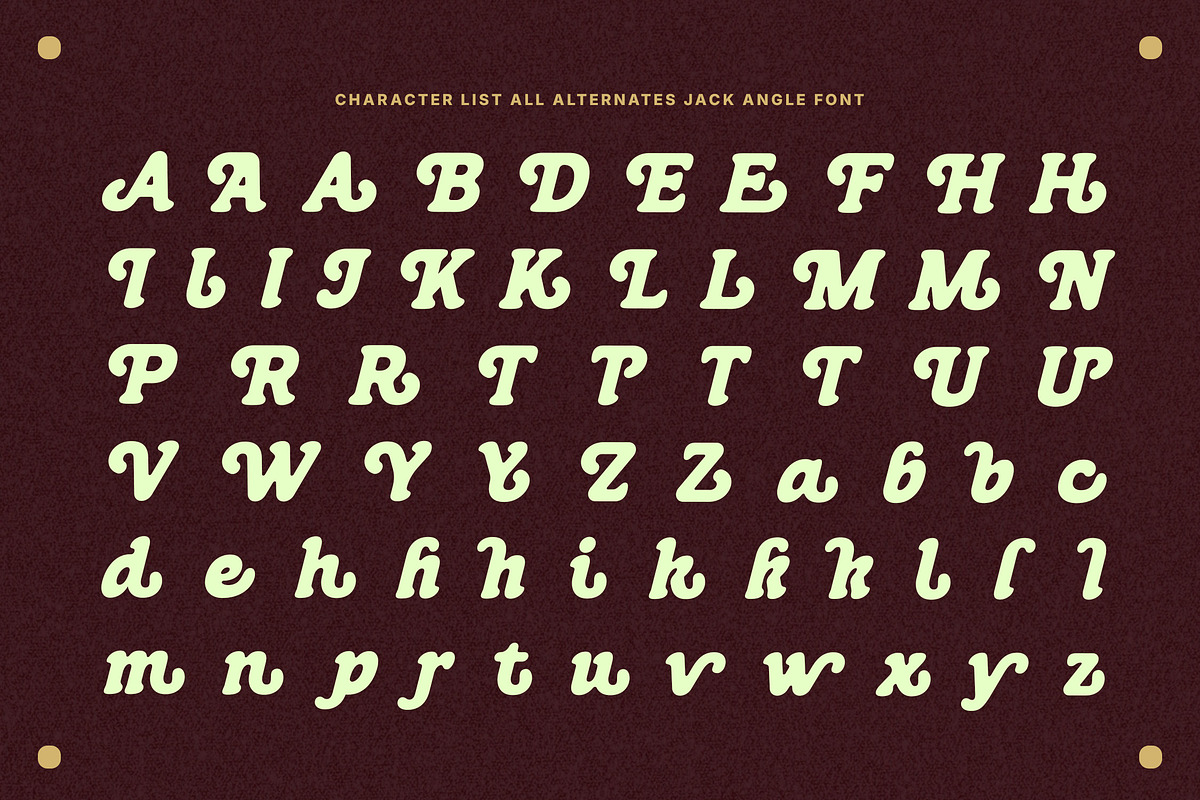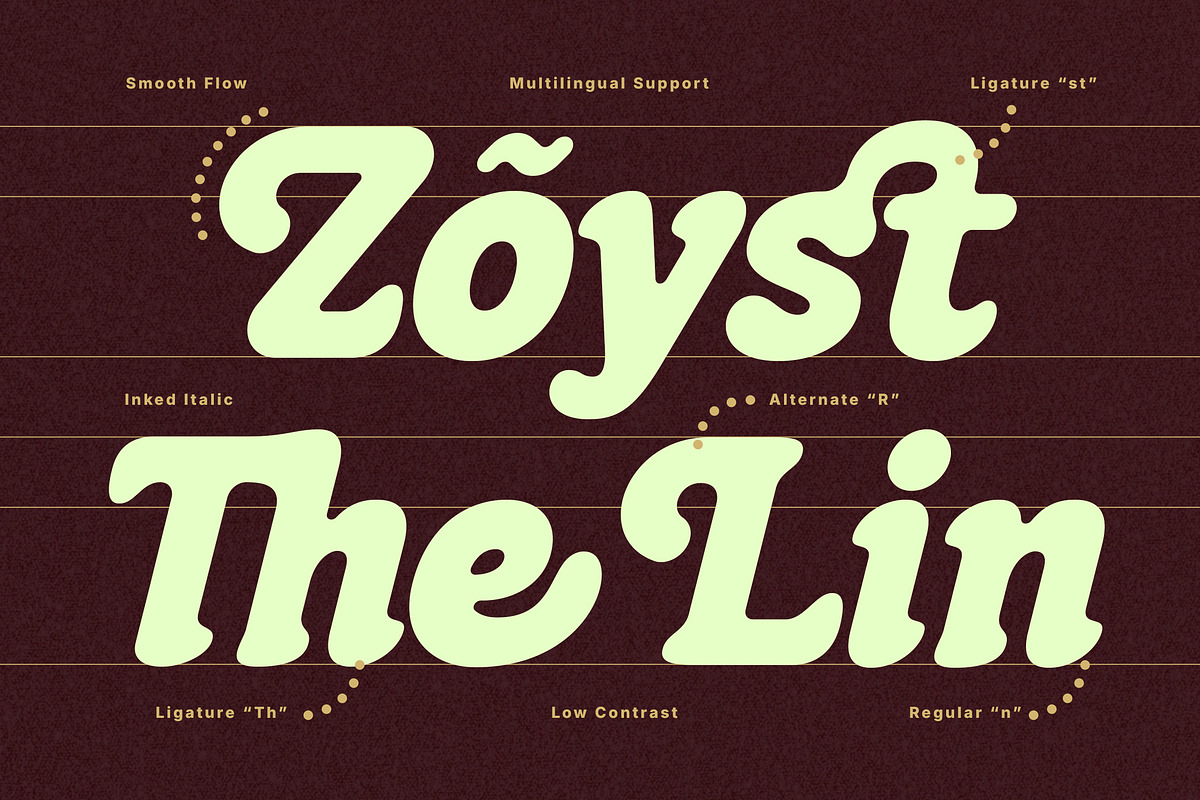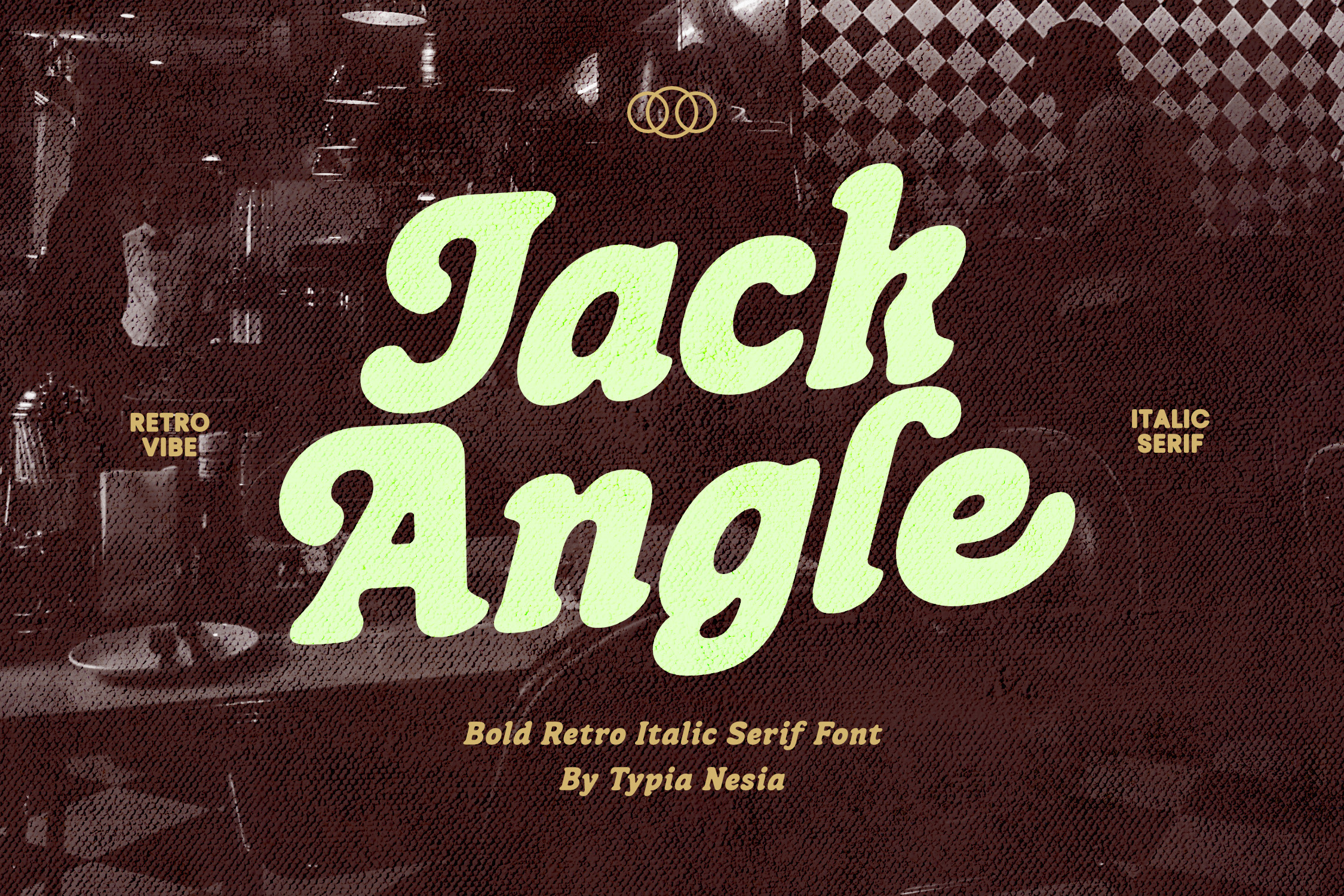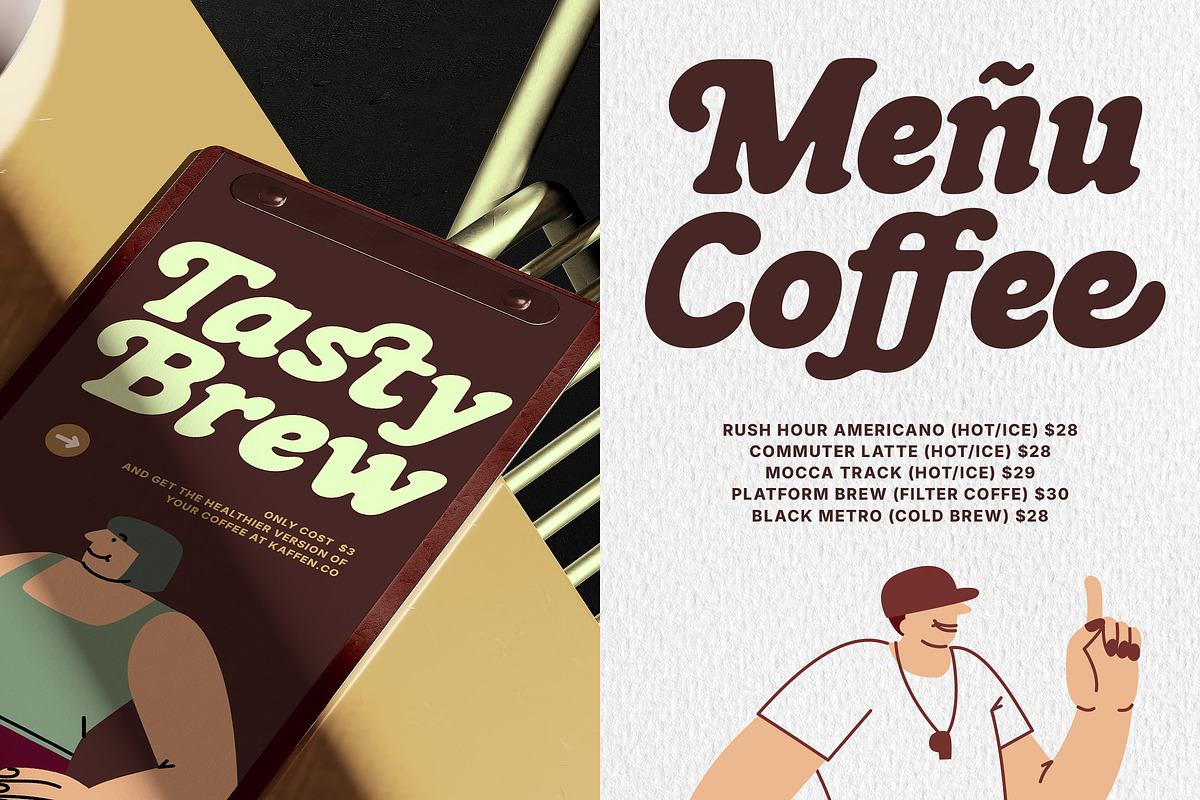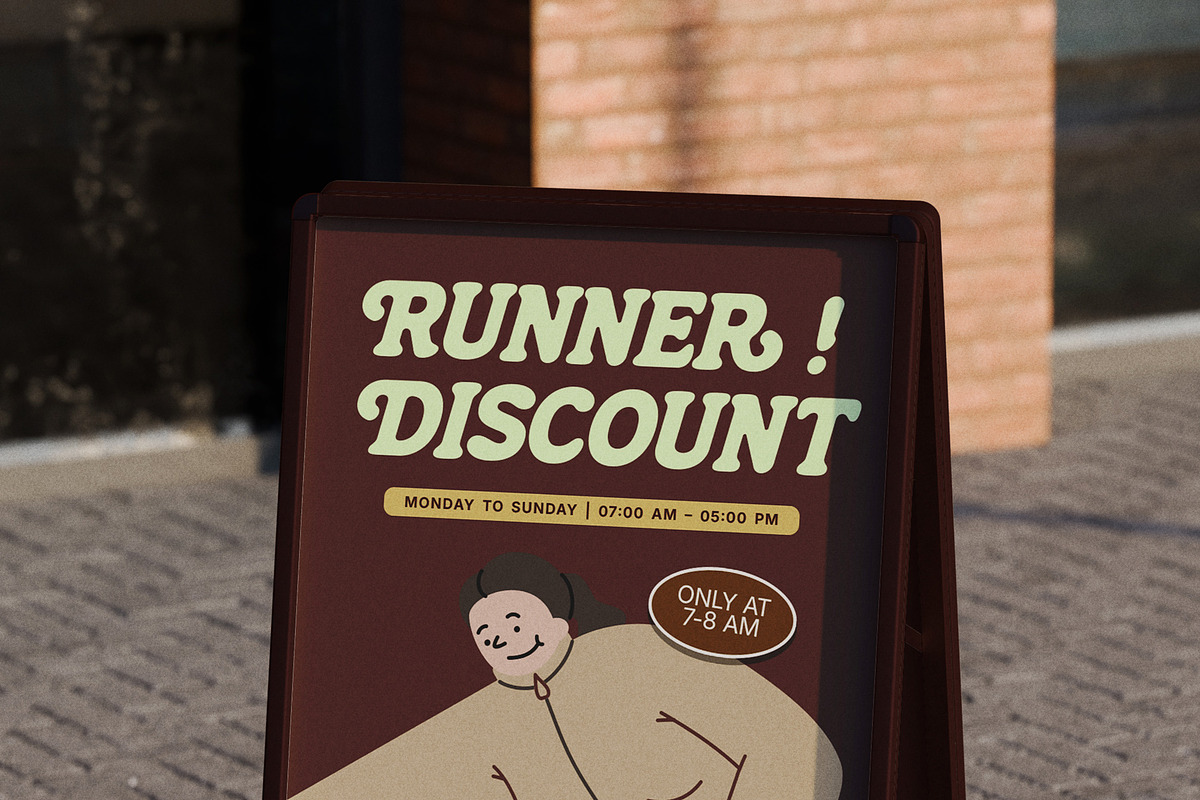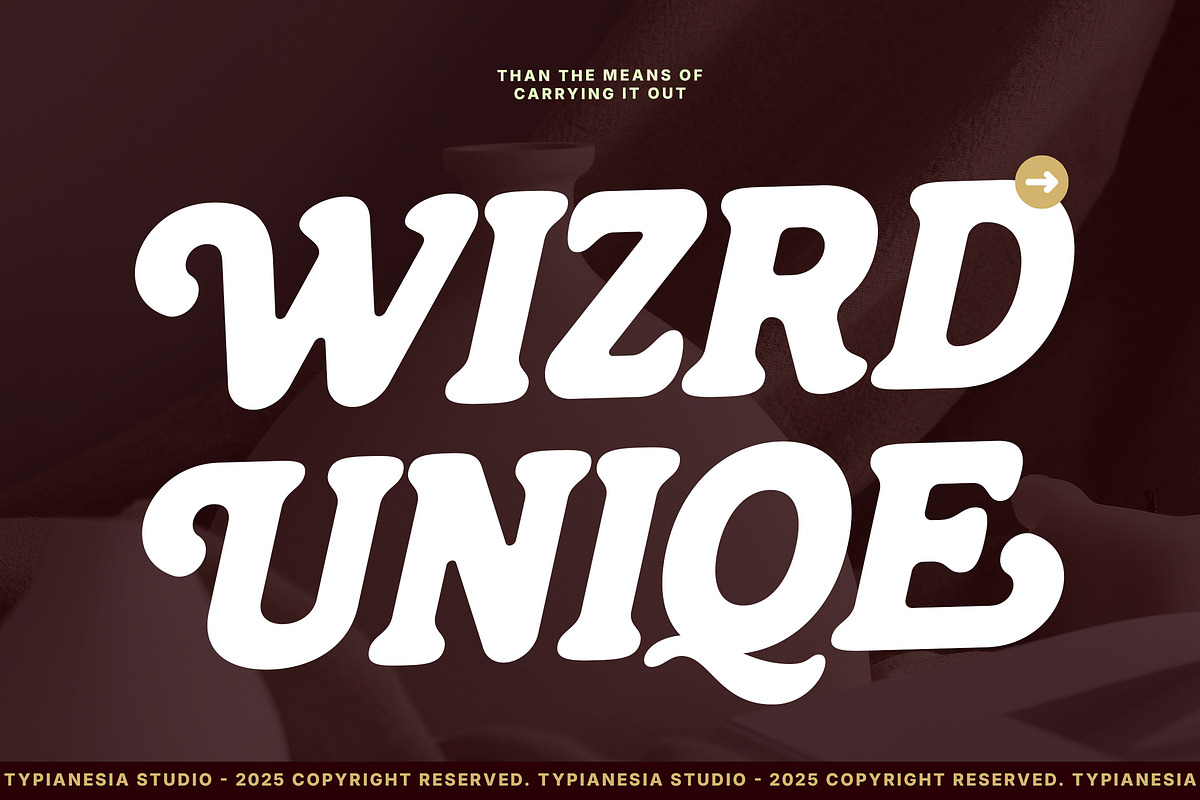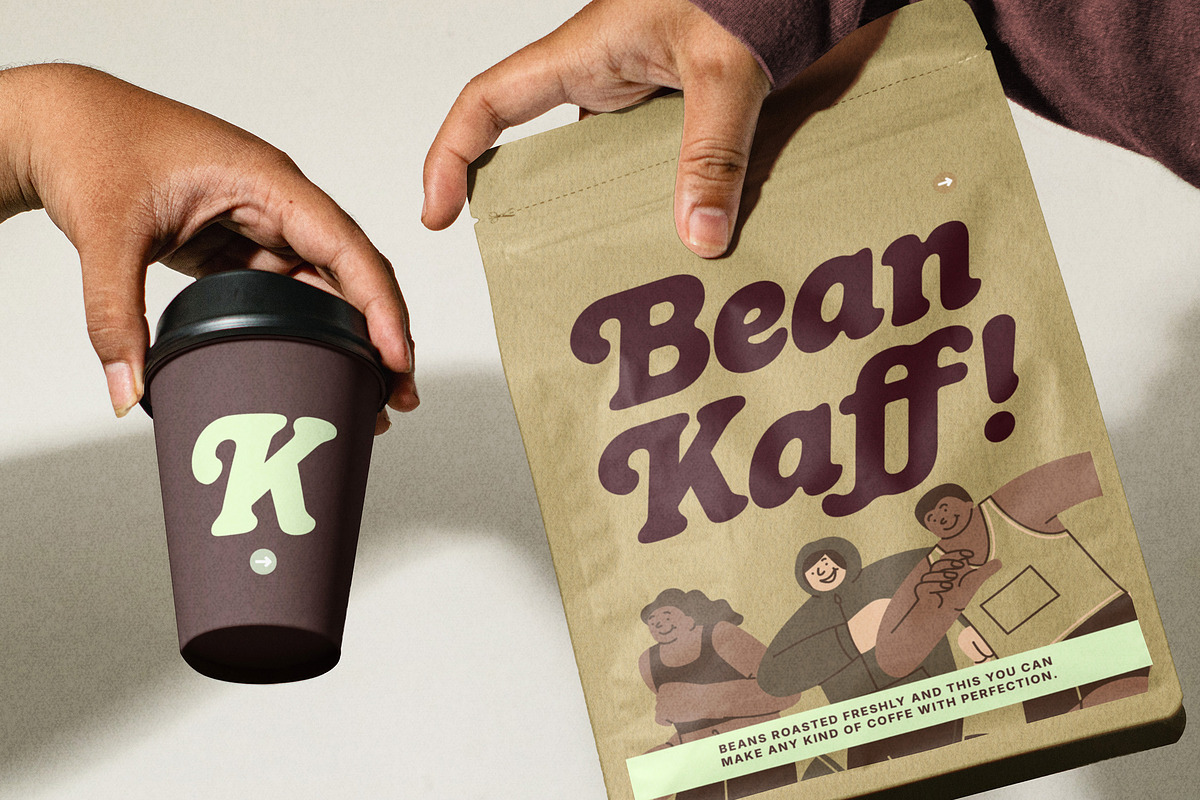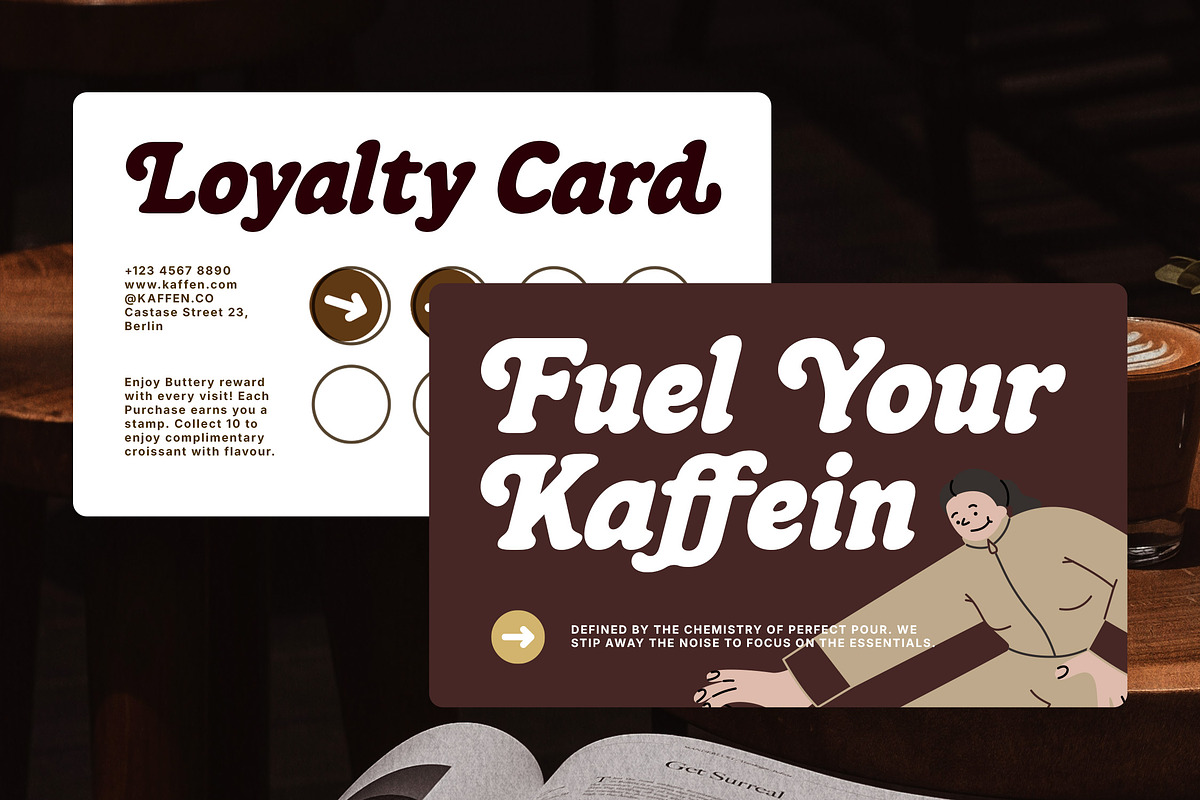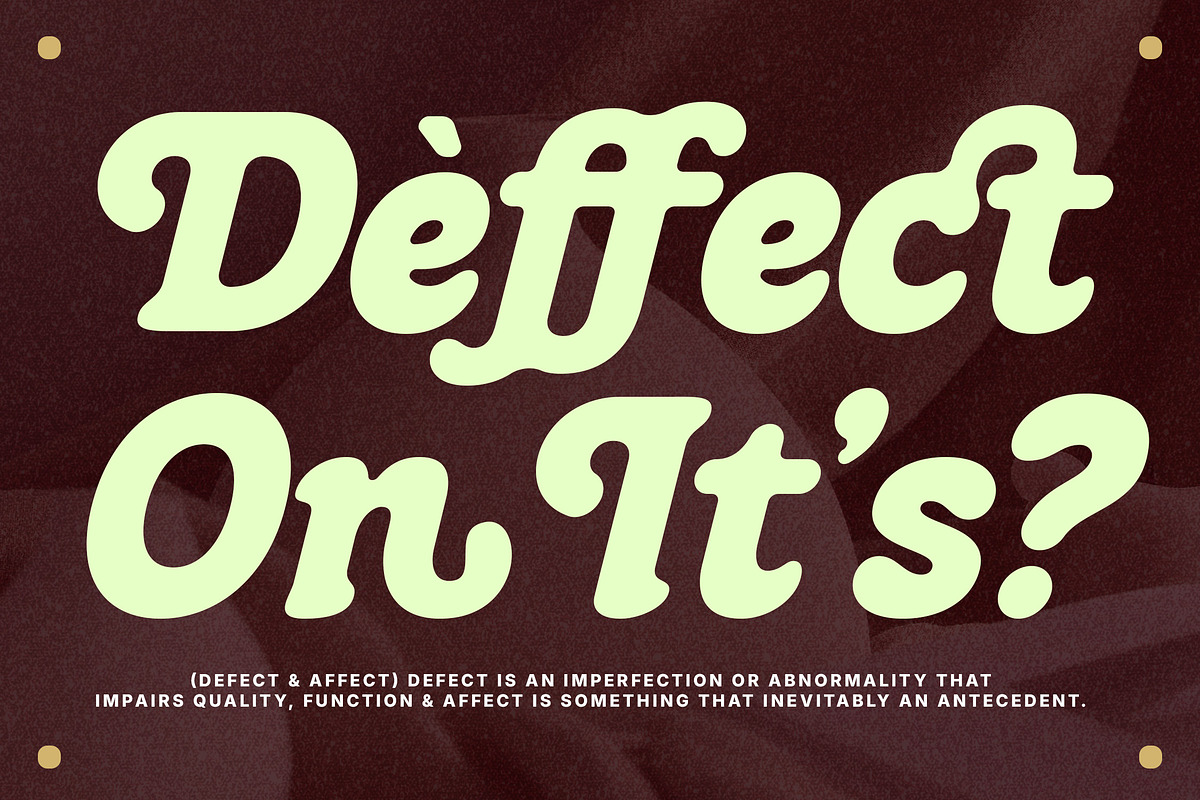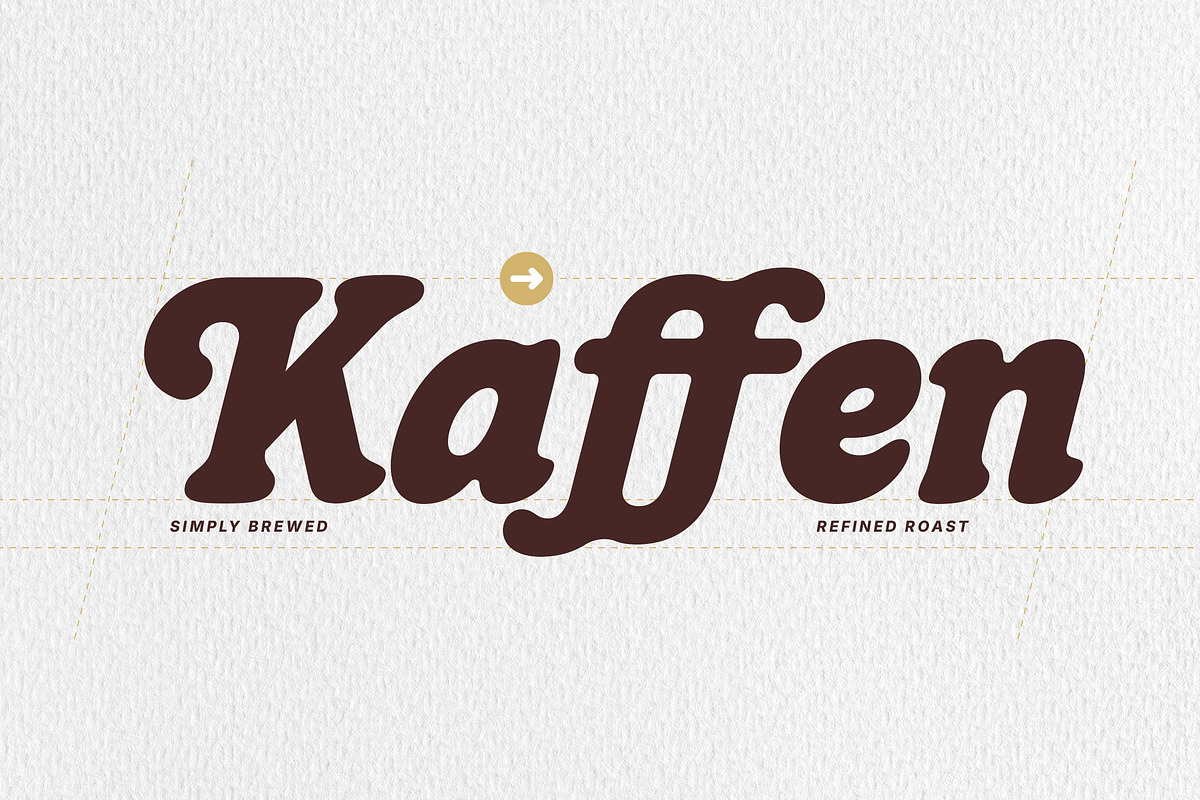
Jack Angle – Bold Retro Italic Font
Jack Angle – Bold Retro Italic Serif - Classic Logo Inked Display Font
Jack Angle is a bold retro italic serif font inspired by classic 70s typography, groovy aesthetics, and nostalgic vintage design. Featuring strong serif details with dynamic italic movement, this typeface delivers a stylish and expressive character that feels both timeless and energetic. Its bold curves and retro-inspired proportions create a powerful visual presence perfect for headlines, logo design, branding, café visuals, coffee packaging, posters, and nostalgic creative projects. The inked-style appearance adds warmth and handcrafted charm, making every composition feel authentic and memorable.
Bring retro groove to your designs with Jack Angle.